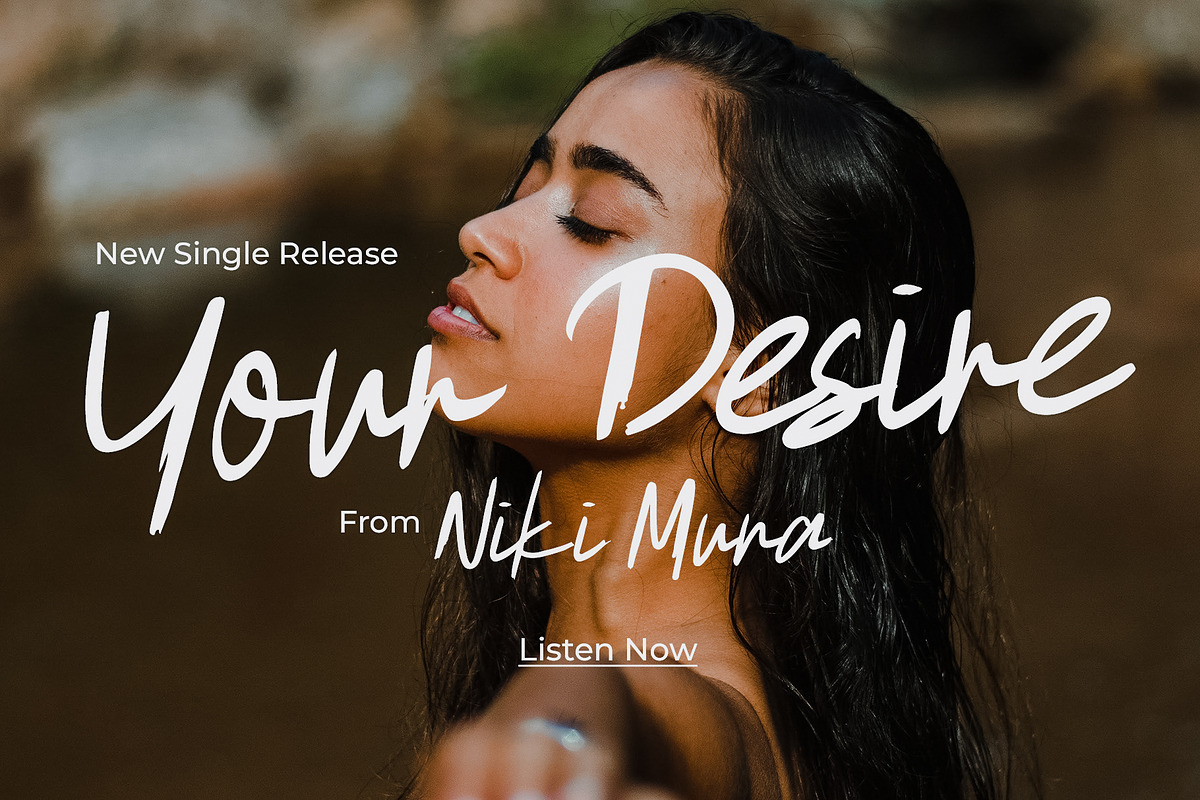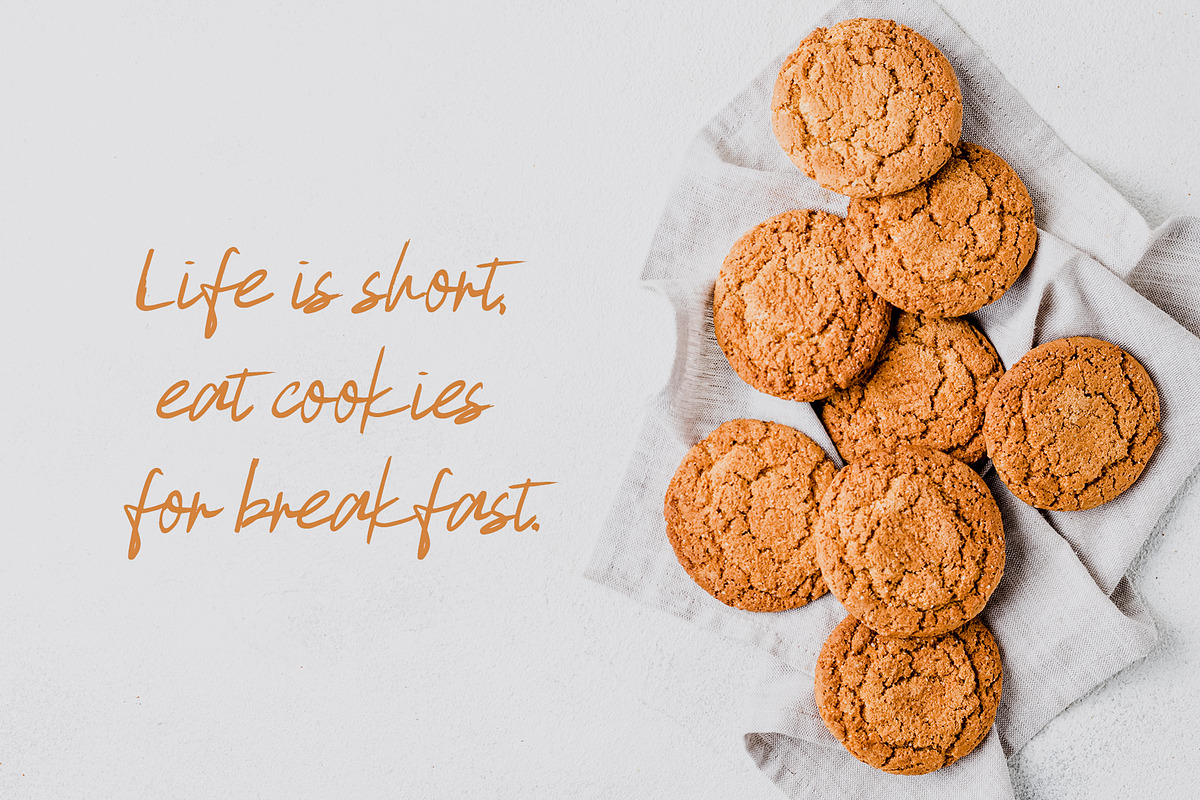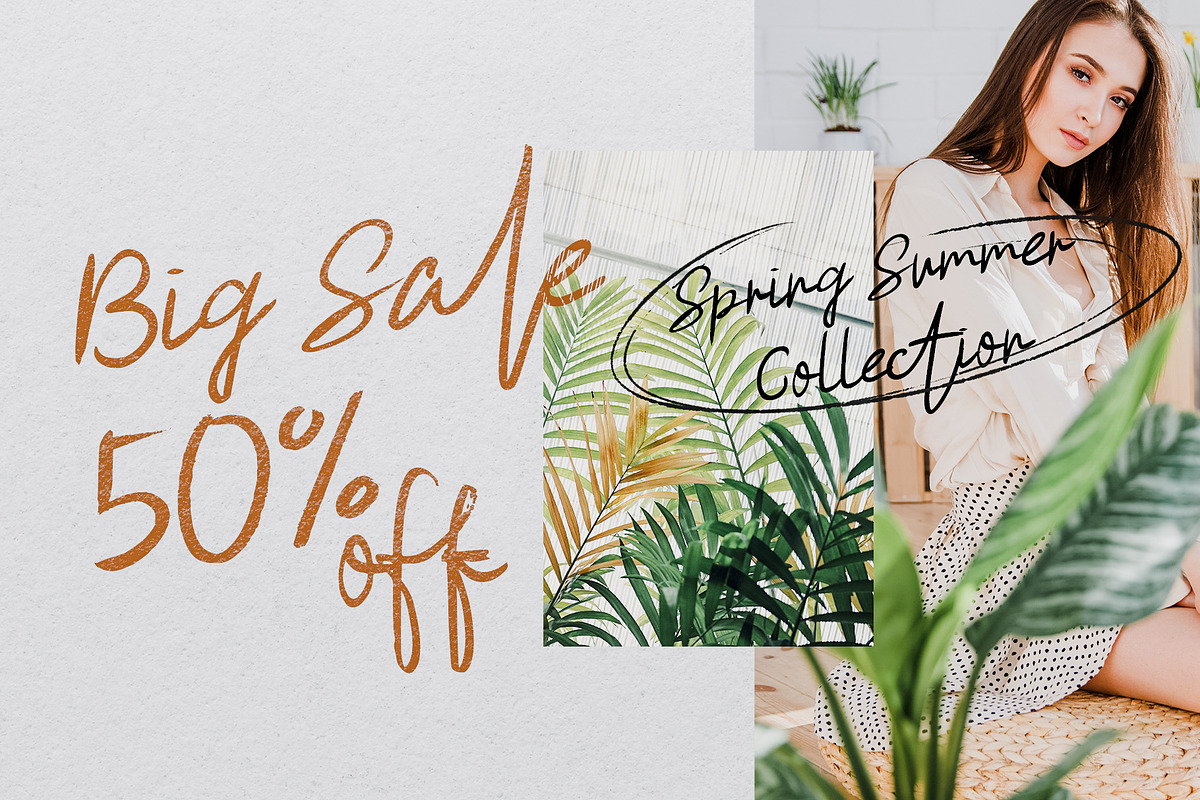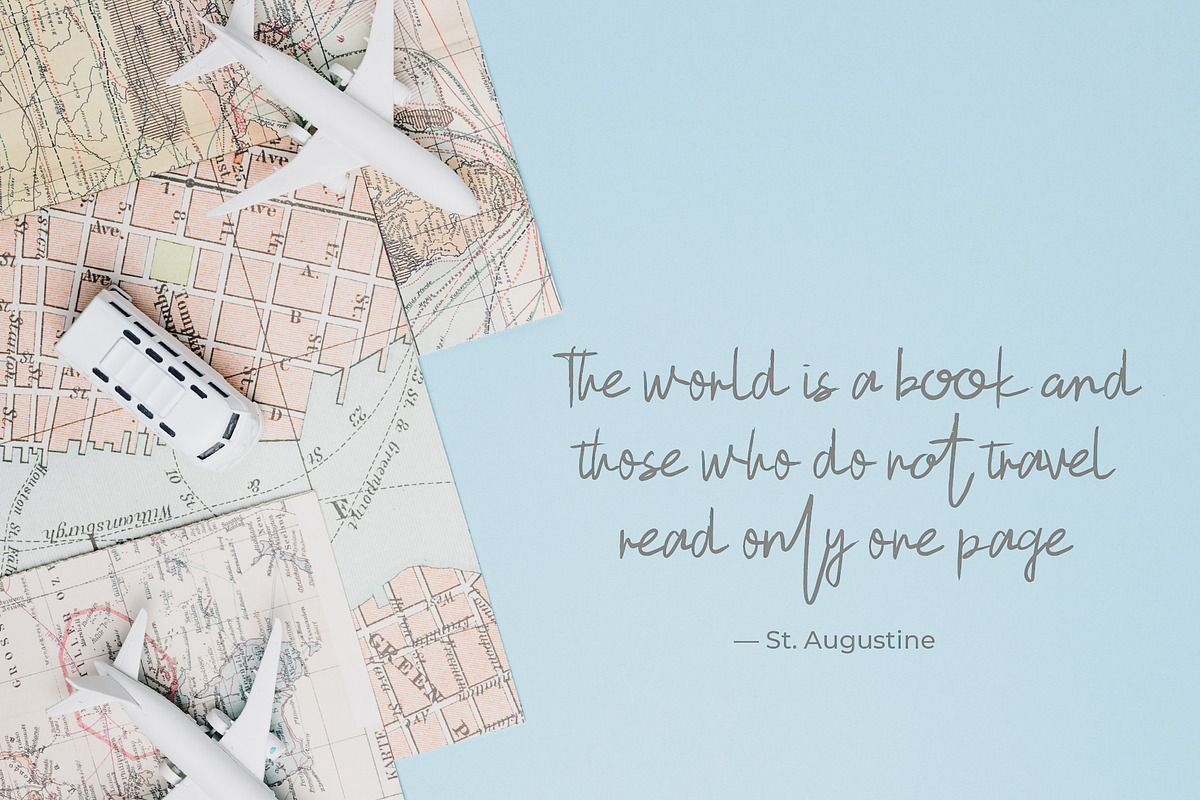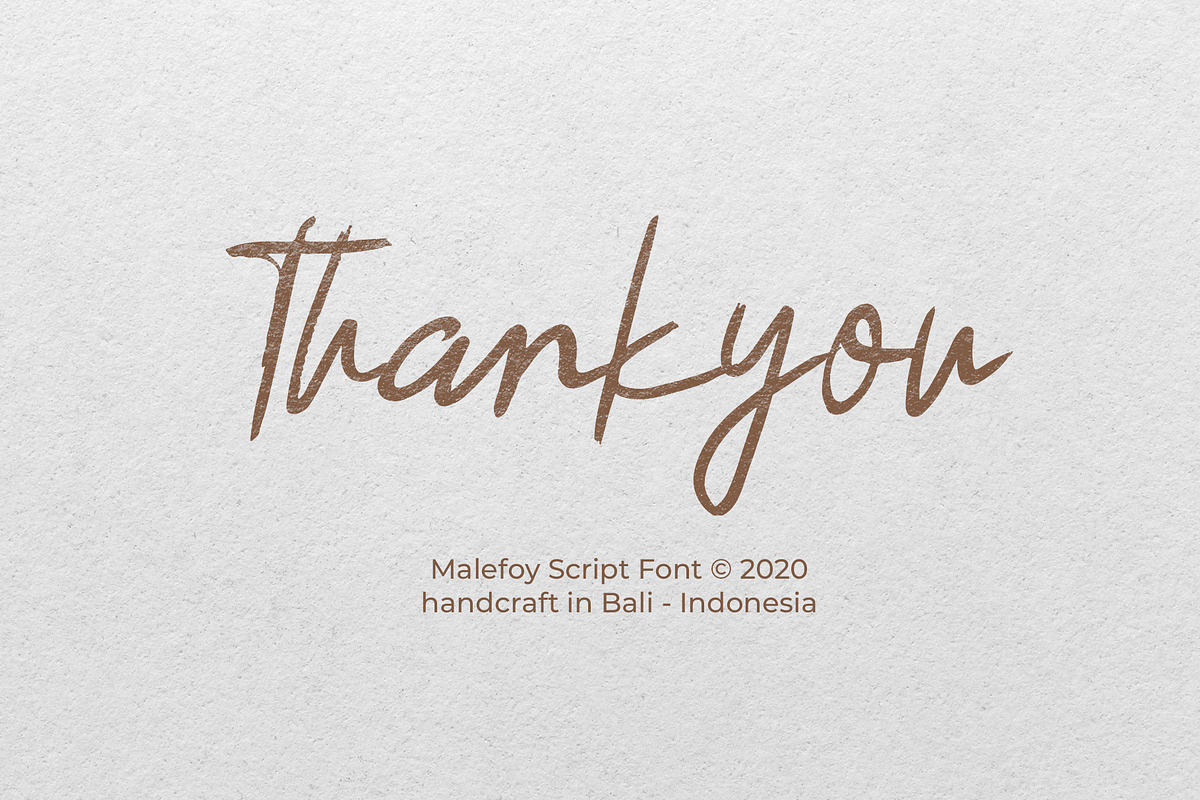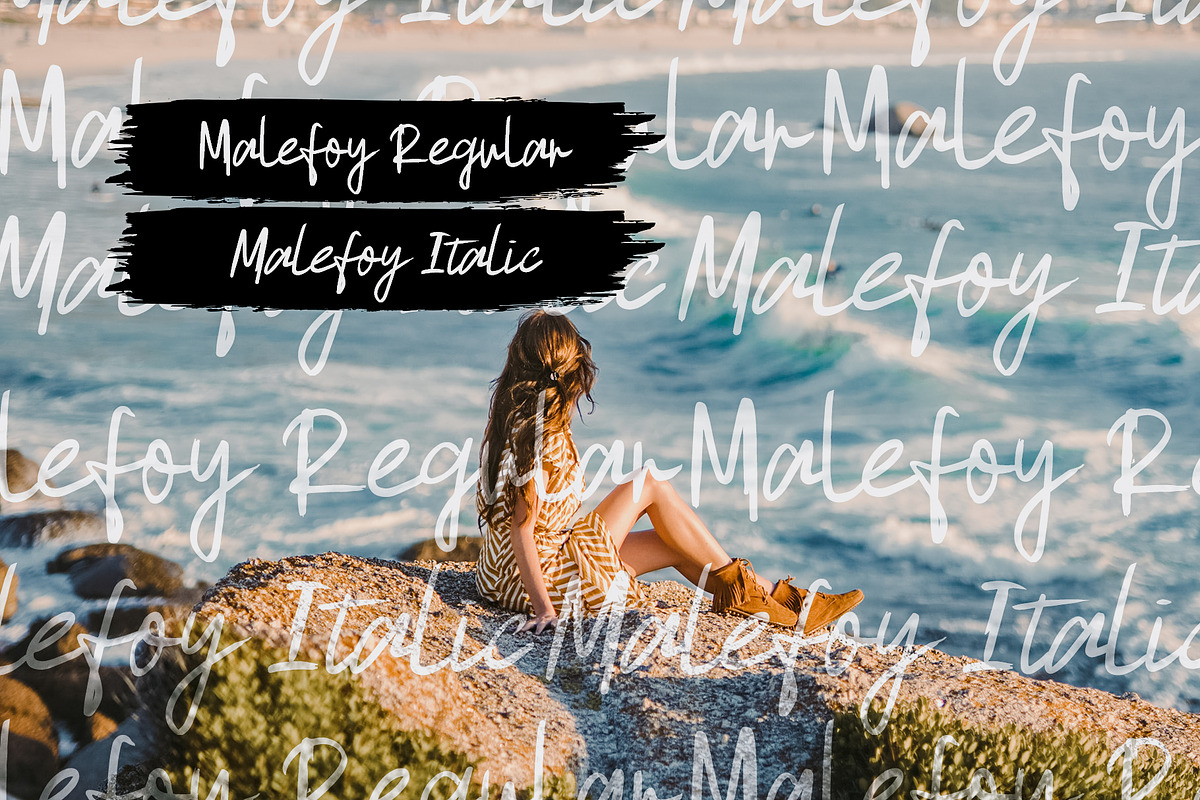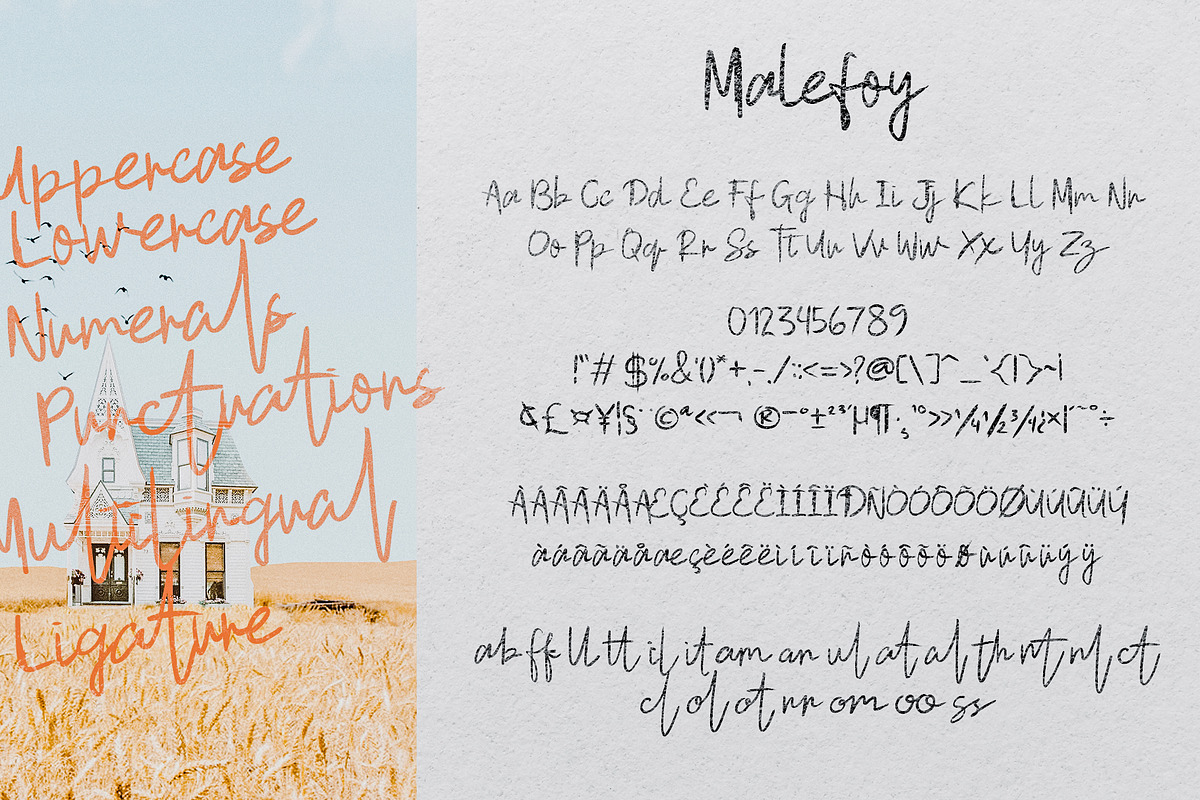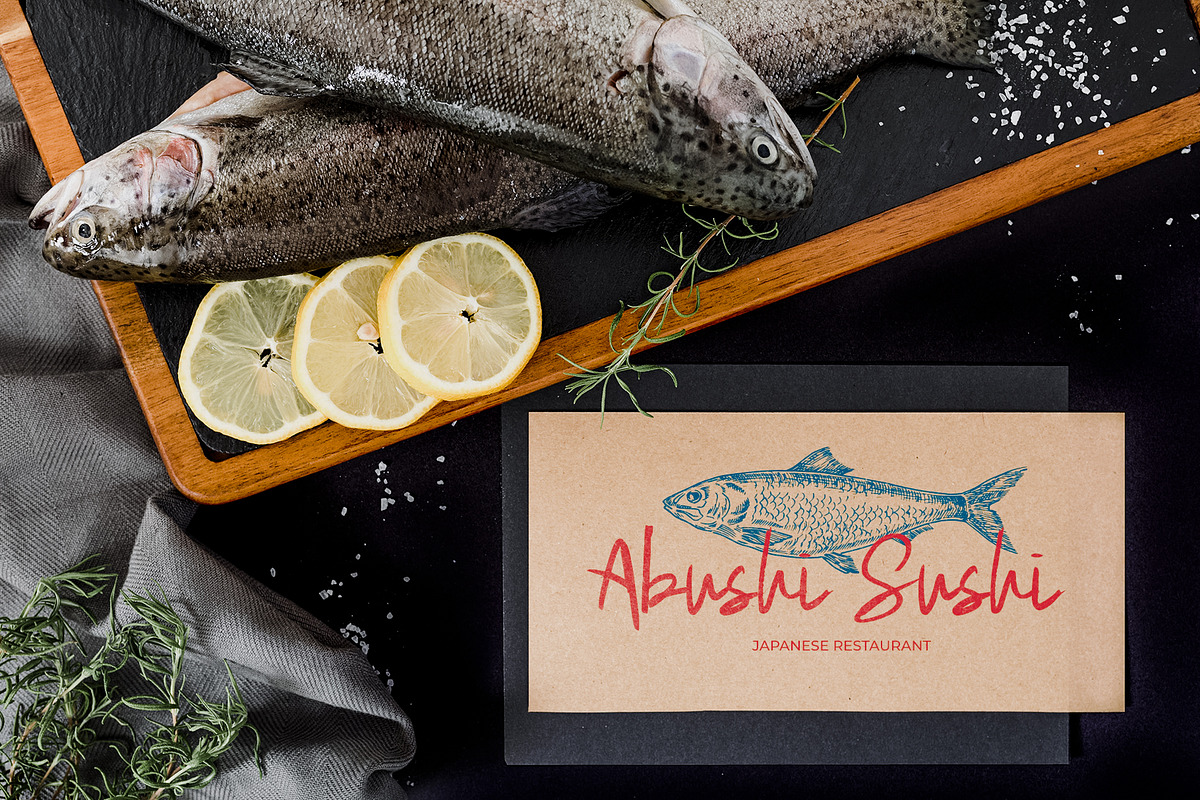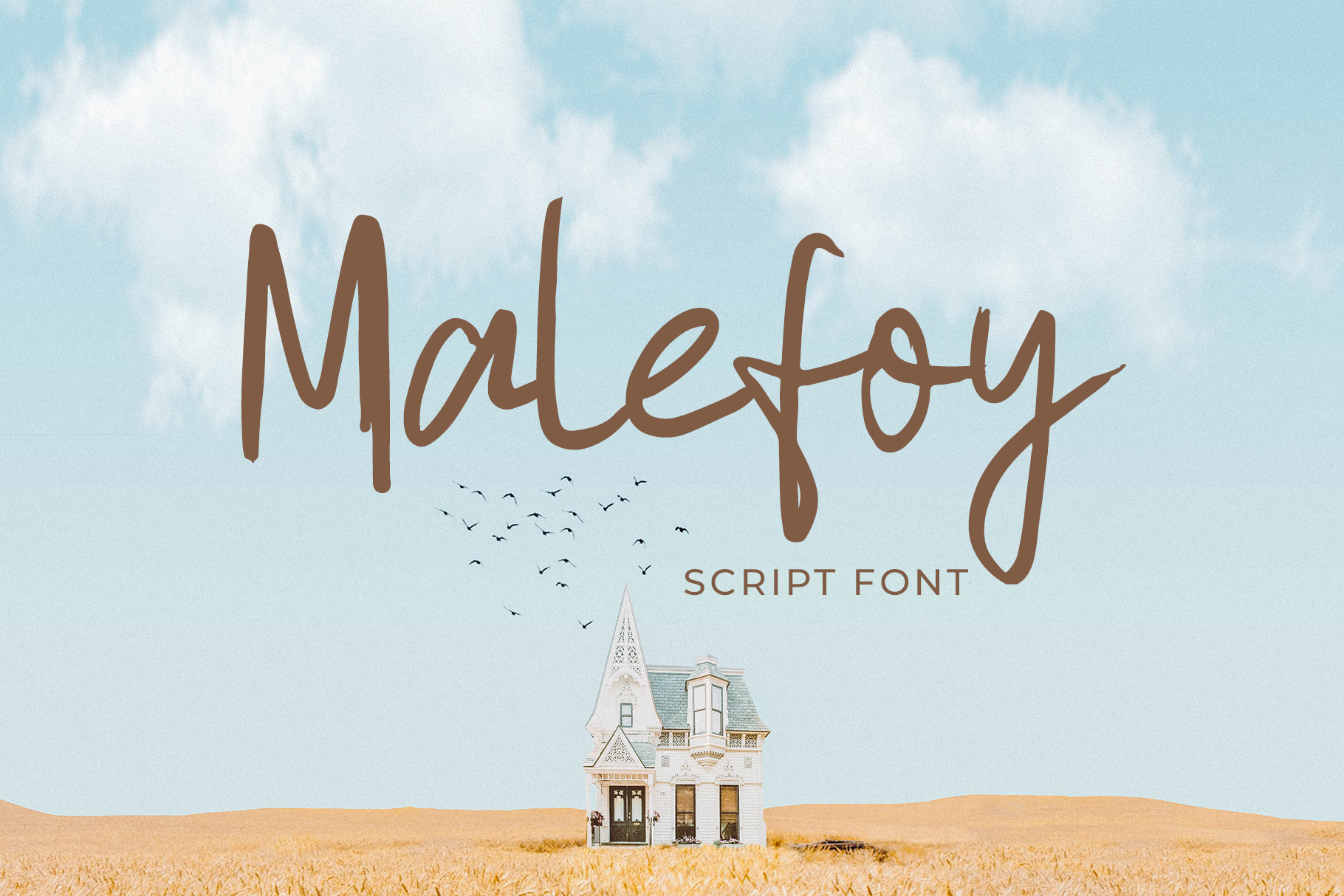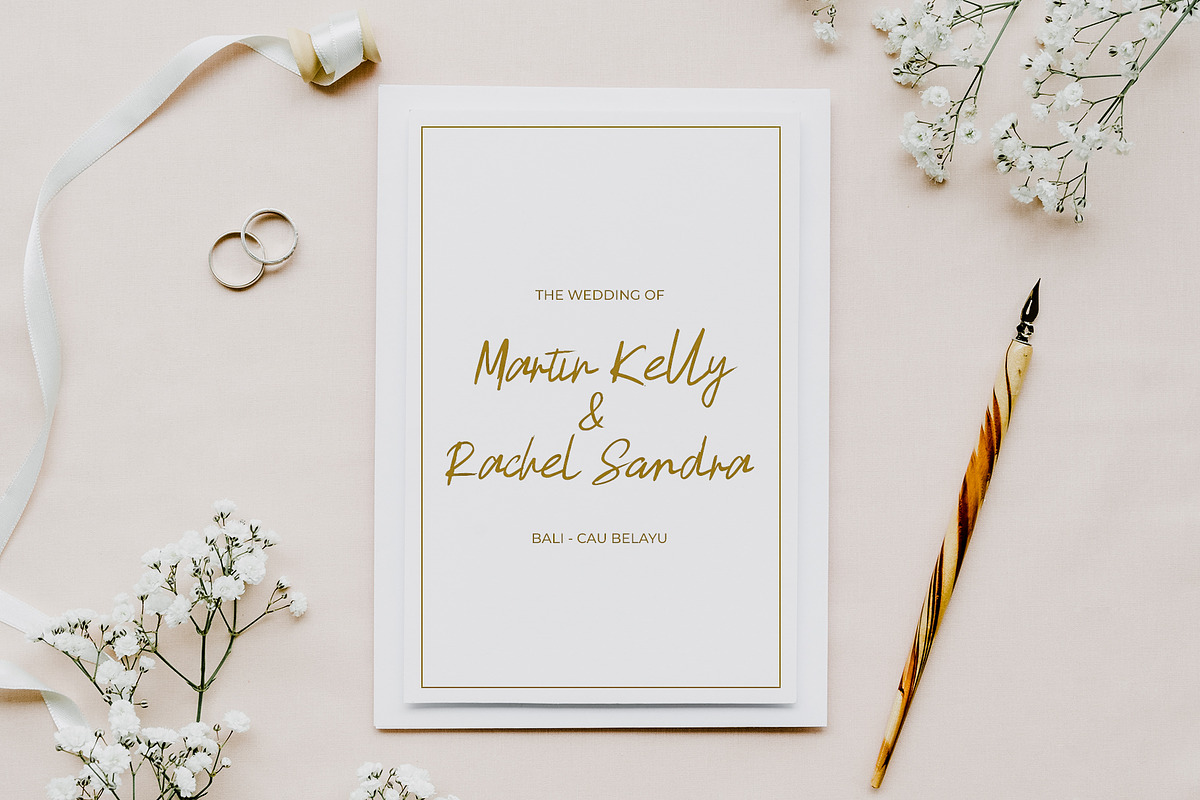
Malefoy Script Font
I proudly introduce to you Malefoy Script font, created from rough brush strokes, made manually with hand. Can make it easier to convey the message in your design and create a unique impression. This script font different from other script fonts. Malefoy is perfect for all design concepts with casual or non-formal themes.
Very well used for wedding invitation card designs, vlogger preview, logotype designs, fashion web banner, Musician song promotion, quotes and much more.
- A-Z Character with Uppercase & Lowercase.
- Numerals & Punctuations.
- Multilingual.
- Ligature.